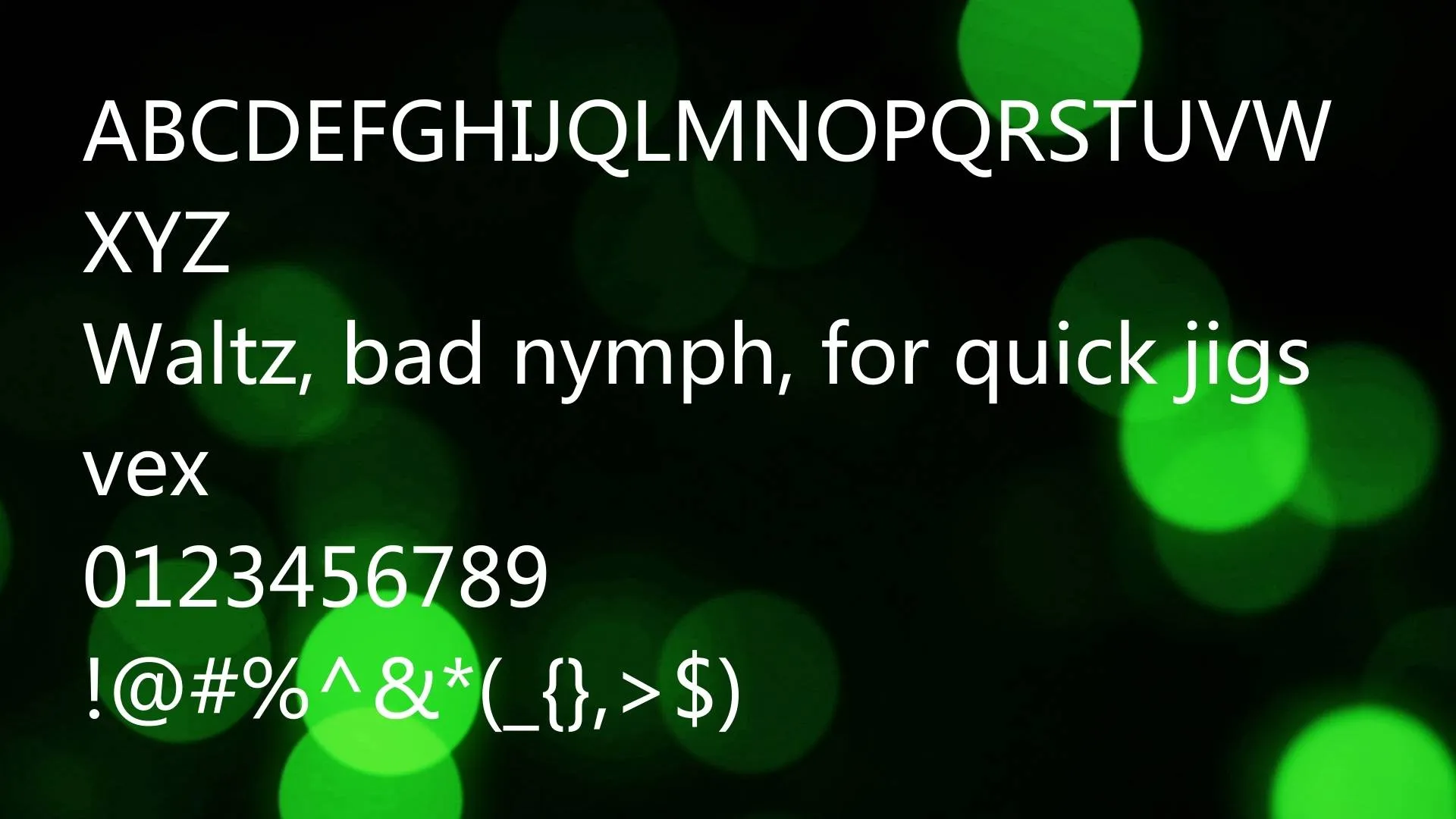
Let’s introduce the wonderful and amazing typeface that is known as Microsoft Yahei Font. It is the best sans serif typeface. This elegant and impressive letter was designed and published by using Microsoft. This typeface is created upon the ClearType method.